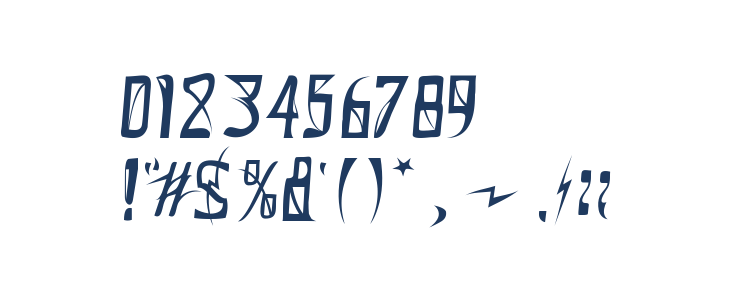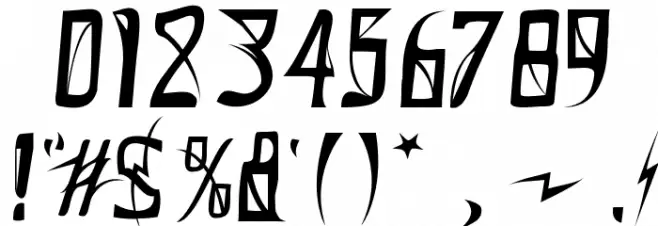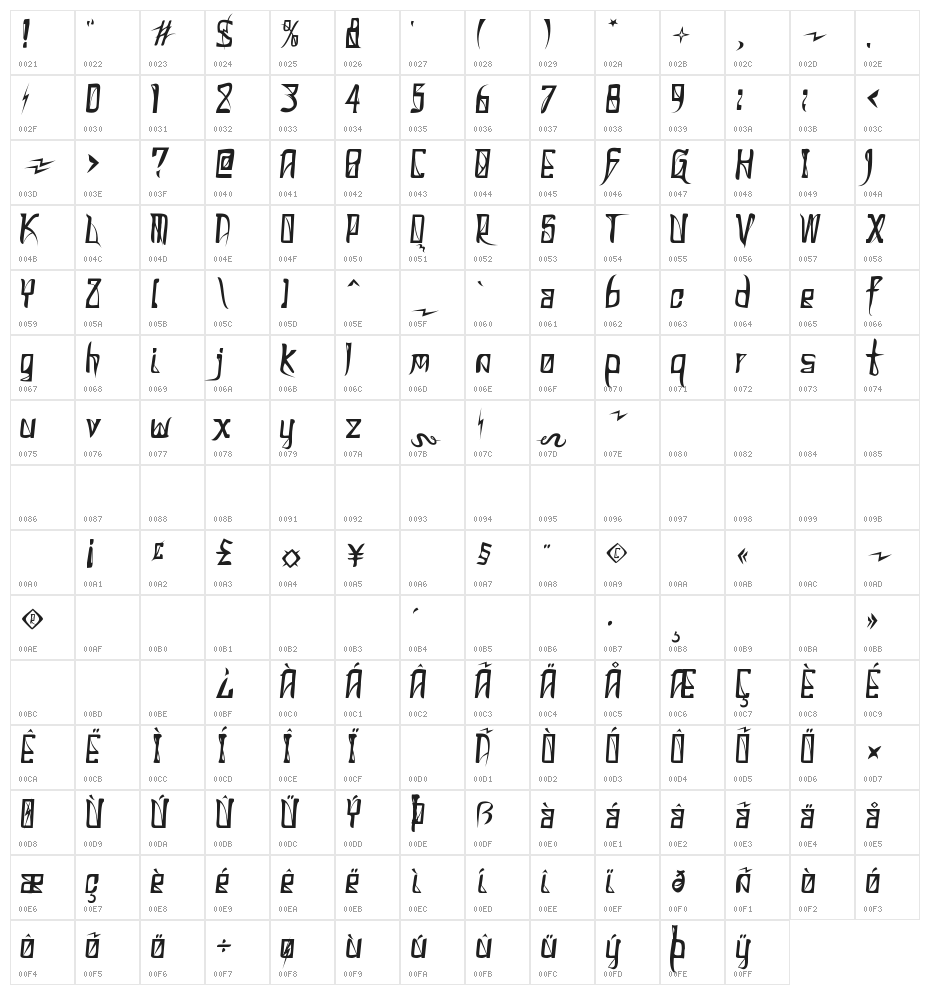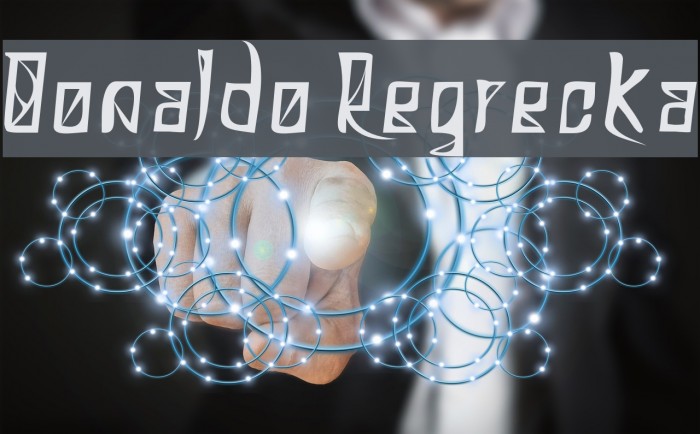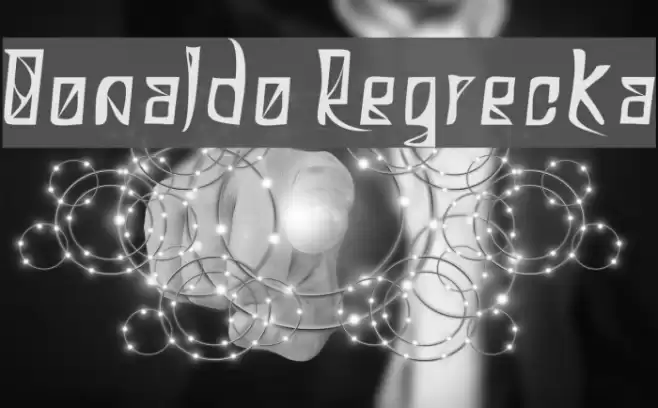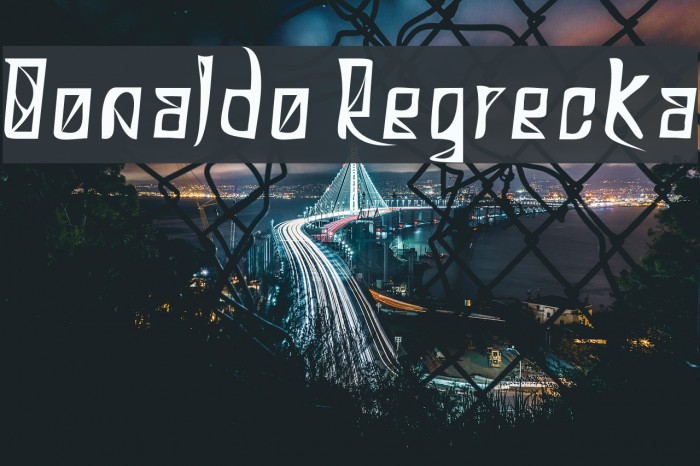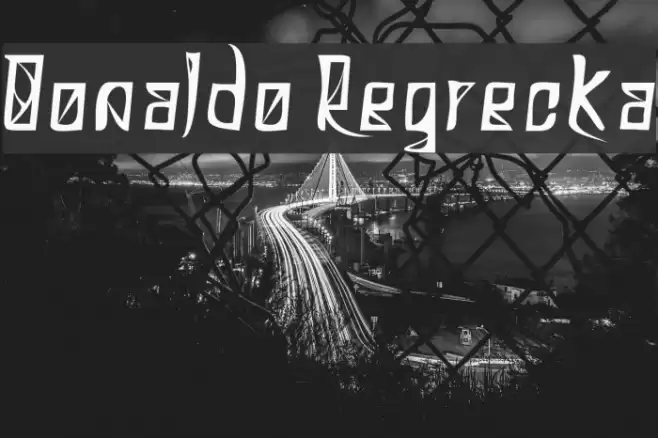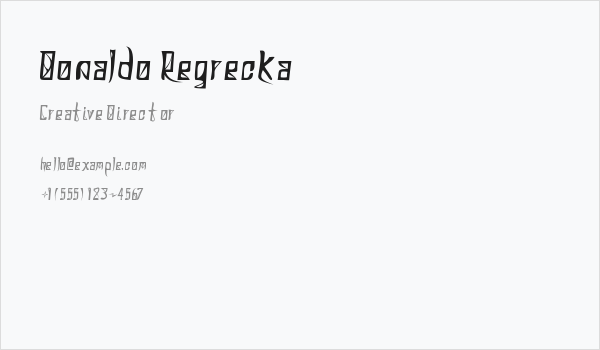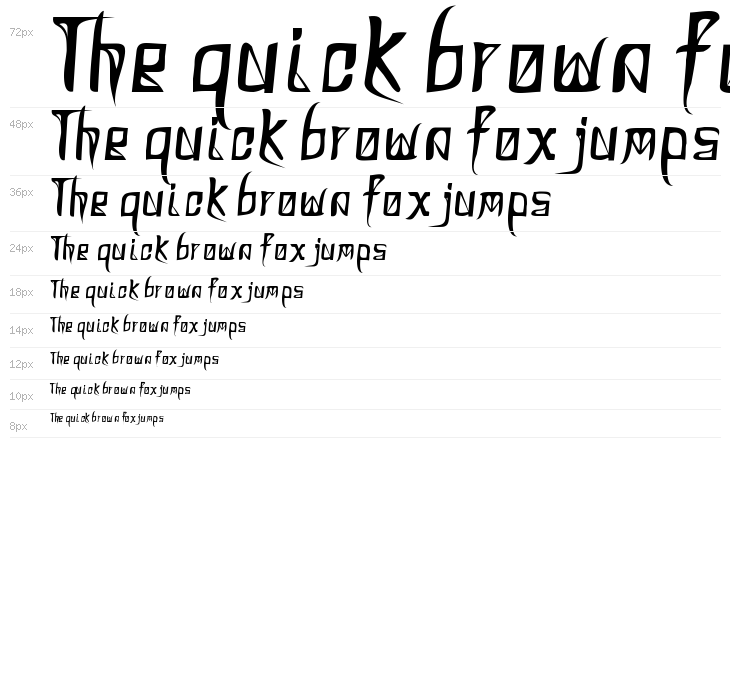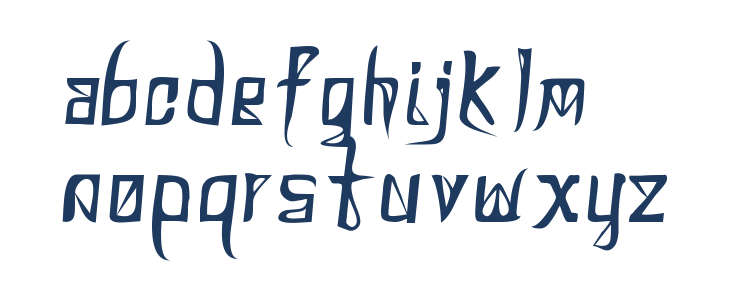
Donaldo Regrecka Font
Donaldo Regrecka Description
This font features an edgy and dynamic style with sharp, angular lines and a unique, artistic flair. The uppercase letters exhibit a bold presence with elongated strokes and pointed serifs, creating a sense of movement and energy. The lowercase letters maintain this aesthetic, offering a cohesive look throughout the alphabet. Numbers and special characters are designed with the same attention to detail, ensuring consistency across all glyphs. The overall design is reminiscent of a modern, futuristic theme, making it stand out in any application.
| Proposed Projects | Ideal for use in branding, posters, album covers, and any project requiring a striking, contemporary look. |